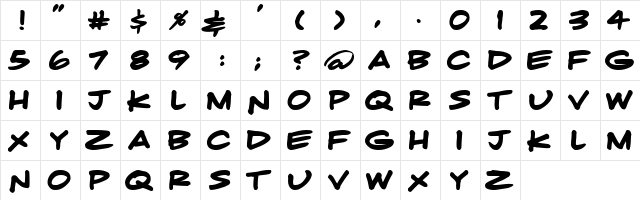
LHF Comic Caps Regular Regular
Design Context for LHF Comic Caps Regular Typeface
LHF Comic Caps Regular has an approachable, lighthearted character — its loose, expressive forms are well-suited to children's content, casual branding, and fun-first design.
Great for children's books, toy packaging, family event branding, and casual consumer-facing design.
Font Pairing: Pairs well with a rounded or humanist sans for body copy, maintaining the friendly tone without relying on LHF Comic Caps Regular to carry extended reading.
Pro Tip: Avoid using LHF Comic Caps Regular for long passages of text — it works best for headlines, labels, and short calls to action.